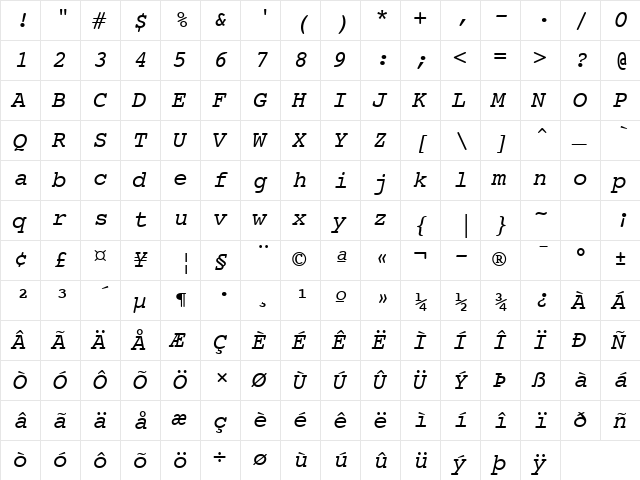
Courier SWA Italic
Design Context for Courier SWA Typeface
Courier SWA uses fixed-width spacing throughout, giving it the structured, systematic character associated with coding environments and technical documentation. The slanted form adds forward momentum and visual energy.
Pro Tip: Use Courier SWA with slightly increased line-height for extended reading — fixed-width spacing can feel dense in longer passages without extra breathing room.